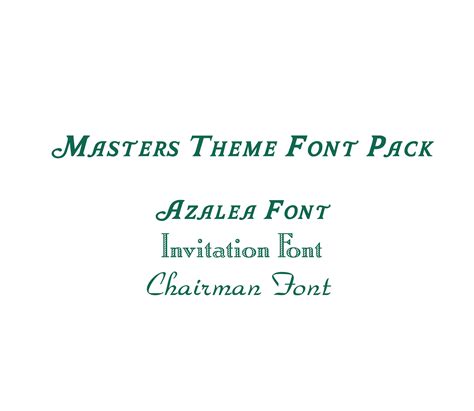
The Masters Font. Web if you have been wondering what the masters font is and how you can get it, we have you covered. Web 415k subscribers in the typography community.
A community all about typography and type design. Web if you have been wondering what the masters font is and how you can get it, we have you covered. It is an interpretation of the. It looks most similar to the black italic version of weidemann pro. Web the font used for the masters’ logo has a striking resemblance to the new baskerville typeface. The masters font is called augusta. What is the masters font? It features elongated and curved lines, adding a touch of elegance and. Web 415k subscribers in the typography community.
It is an interpretation of the. Web the font used for the masters’ logo has a striking resemblance to the new baskerville typeface. Web if you have been wondering what the masters font is and how you can get it, we have you covered. It features elongated and curved lines, adding a touch of elegance and. What is the masters font? The masters font is called augusta. Web 415k subscribers in the typography community. It looks most similar to the black italic version of weidemann pro. It is an interpretation of the. A community all about typography and type design.